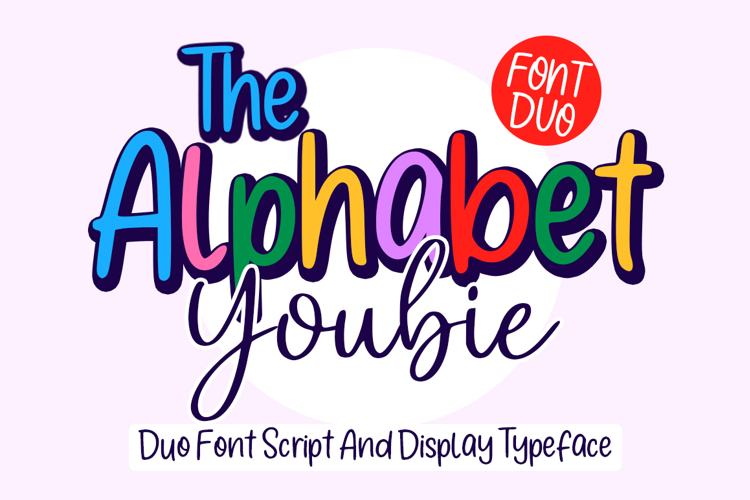
The Alphabet Youbie Duo
Introducing The Alphabet Youbie, a beautifully crafted script and display font duo designed to complement each other perfectly. This harmonious pairing blends the graceful flow of a handwritten script with the bold presence of a modern display style, creating a balanced typographic combination that feels both expressive and sophisticated.
The script font features smooth, natural strokes that mimic elegant hand lettering, giving your designs a warm, and artistic touch. Meanwhile, the display font provides strong and stylish letterforms that add clarity and visual impact, making it perfect for headlines and standout typography.
Together, these two styles create a seamless typographic harmony, allowing you to mix elegance with bold personality in a single design. Whether used together or separately, The Alphabet Youbie offers versatility and charm for a wide range of creative projects.
• Branding and logos
• Social media graphics
• Invitations and wedding designs
• Packaging and product labels
• Posters and editorial layouts
• Quotes and inspirational typography
With its unique blend of playful elegance and modern character, The Alphabet Youbie brings creativity and personality to every letter, making your designs feel more alive, expressive, and memorable.